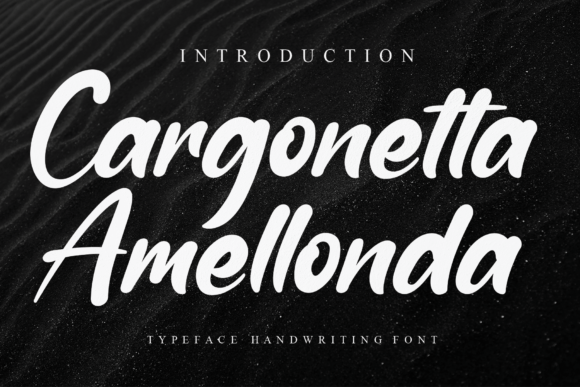
The Designer’s Delight: Cargonetta Amellonda Font
I’ll never forget the time I was working on a branding project for a trendy boutique hotel. My client wanted a font that exuded confidence, nostalgia, and a touch of playfulness. I scoured the internet, tried out countless fonts, but nothing seemed to fit the bill. That was until I stumbled upon the Cargonetta Amellonda font. It was love at first sight! ✨
This gorgeous, bold handwritten font has been a game-changer for my design projects, and I’m excited to share my experience with you. In this article, we’ll dive into the world of Cargonetta Amellonda, exploring its features, how to use it, and where it fits into the world of typography.
- ✅ Unique Character: Cargonetta Amellonda has a distinct, nostalgic feel that sets it apart from other fonts.
- ✅ Confidence and Dynamism: This font reads as strong, confident, and dynamic, making it perfect for headlines and logotype projects.
- ✅ Versatility: It can be used for a wide range of design projects, from branding and advertising to packaging and signage.
- ✅ Elegant and Bold: The font’s bold and elegant appearance makes it perfect for making a statement.
While Cargonetta Amellonda is an amazing font, there are a few things to keep in mind: 🤔
- ⚠️ Limited Legibility: Due to its bold and cursive nature, Cargonetta Amellonda may not be the best choice for body text or small font sizes.
- ⚠️ Glyph Limitations: Some users have reported that the font’s glyph set is limited, which may impact its use in certain design projects.
The Designer Inspiration Behind Cargonetta Amellonda
Cargonetta Amellonda was designed with the intention of creating a font that exudes confidence, nostalgia, and a touch of playfulness. The designer drew inspiration from classic typography, combining elegant lines with a bold and dynamic feel.
Q: What type of projects is Cargonetta Amellonda best suited for?
A: Cargonetta Amellonda is perfect for headlines, logotype projects, branding, advertising, and packaging.
Q: Can I use Cargonetta Amellonda for body text?
A: While Cargonetta Amellonda is a beautiful font, it may not be the best choice for body text due to its bold and cursive nature.